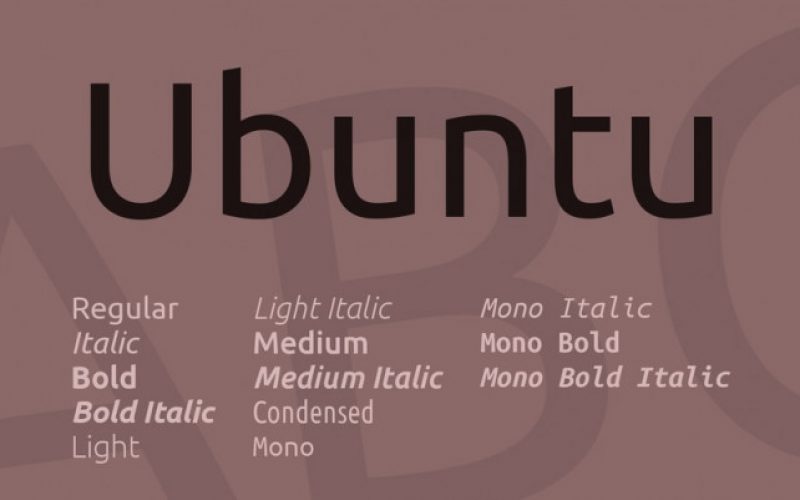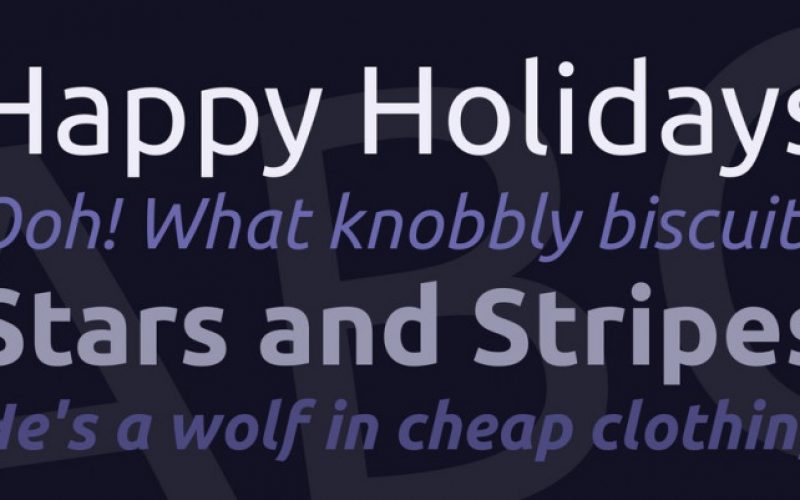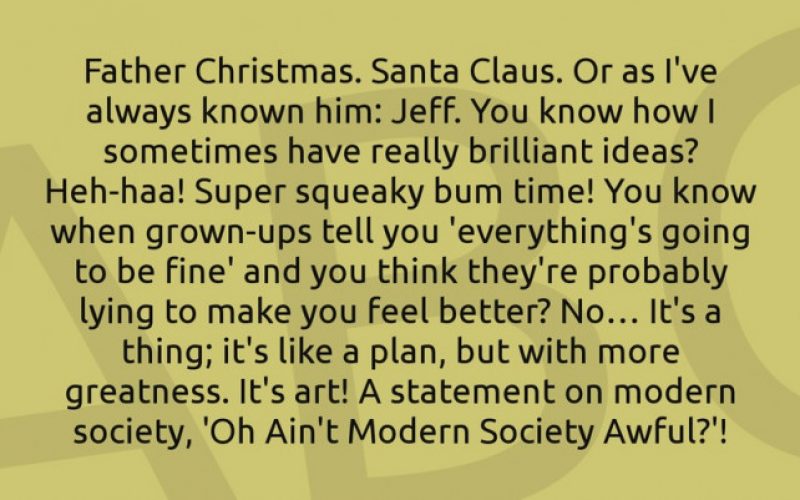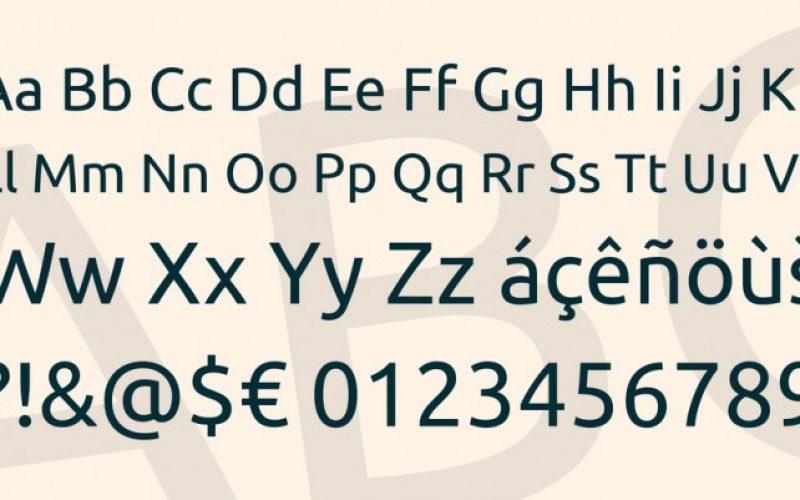
Ubuntu Display Font
The Ubuntu Font Family are a set of matching new libre/open fonts. The development is being funded by Canonical on behalf the wider Free Software community and the Ubuntu project. The technical font design work and implementation is being undertaken by Dalton Maag.
Both the final font Truetype/OpenType files and the design files used to produce the font family are distributed under an open licence and you are expressly encouraged to experiment, modify, share and improve. The typeface is sans-serif, uses OpenType features and is manually hinted for clarity on desktop and mobile computing screens.
The scope of the Ubuntu Font Family includes all the languages used by the various Ubuntu users around the world in tune with Ubuntu’s philosophy which states that every user should be able to use their software in the language of their choice. So the Ubuntu Font Family project will be extended to cover many more written languages.